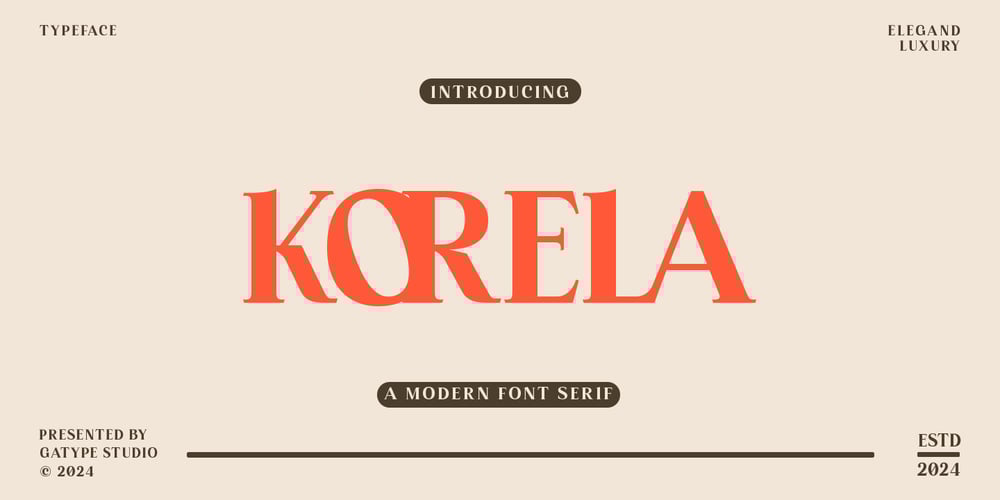
Korela Serif Font Family was designed by khaidir and published by Gatype. Korela Serif contains 1 styles and family package options. Korela Serif is a modern font with a clean, minimalist design.The letter design is bold and clear, with consistent thickness and Suitable for various text sizes, both titles and paragraphs. Ideal for digital design, branding, and materials that require a contemporary and professional look.Korela Serif is coded with PUA Unicode, which allows full access to all additional characters without having to design any special software. Mac users can use Font Book, and Windows users can use Character Map to view and copy any additional characters for pasting into your favorite text editor / application.